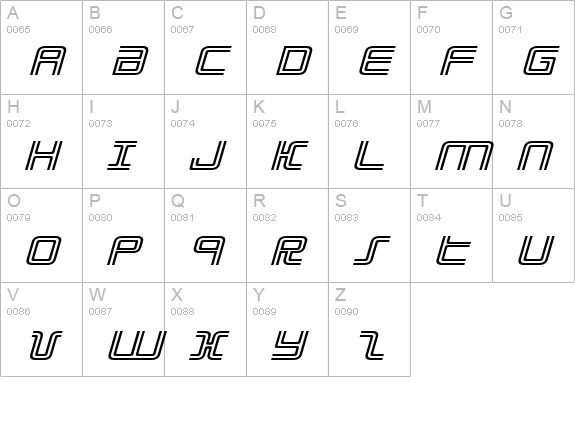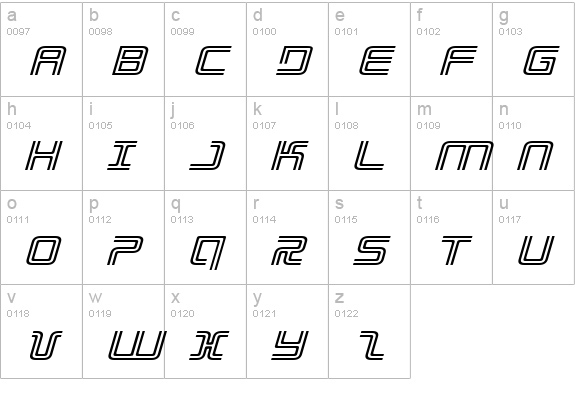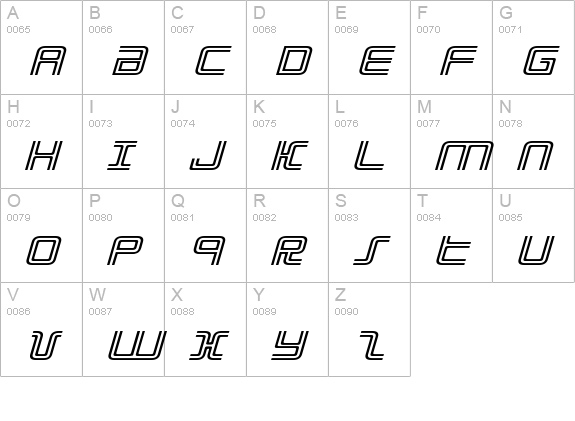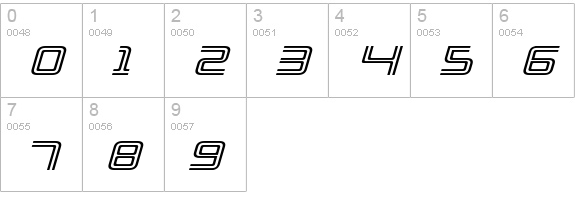
Election Day Expanded Italic is a distinctive, extended-width, italic variant in the Election typeface family \xE2\x80\x94 well suited to design and typography projects.
Election Day Expanded Italic font is a bold and dynamic typeface that exudes strength and sophistication. With its sleek and modern design, this font is perfect for making a statement in your projects. Whether you are designing posters, banners, or social media graphics, Election Day Expanded Italic font will add a touch of elegance and flair. This font is available for free download at FontsMarket.com, making it accessible to all designers and creators looking to elevate their work with a unique and eye-catching font. Don't miss out on the opportunity to enhance your designs with the striking Election Day Expanded Italic font, now just a click away for free at FontsMarket.com.